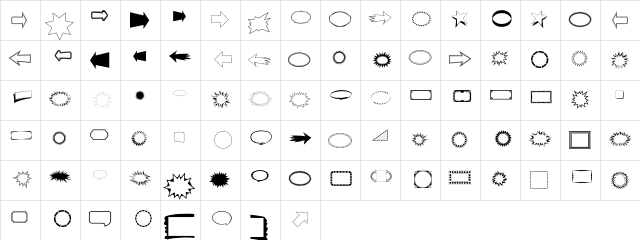
Commercial P02 Font Preview
Commercial P02
Commercial P02 Font Details
Design Context for Commercial Typeface
Commercial is a composed and adaptable typeface that performs quietly and consistently across a wide range of design contexts.